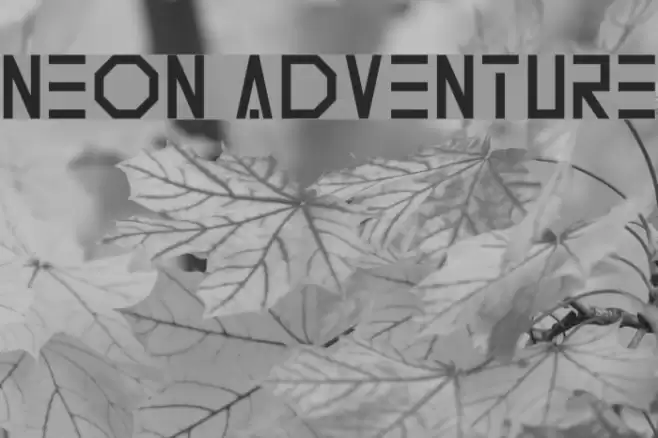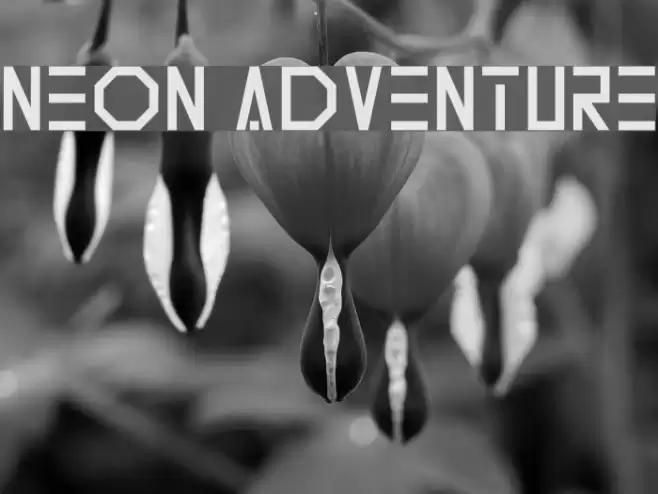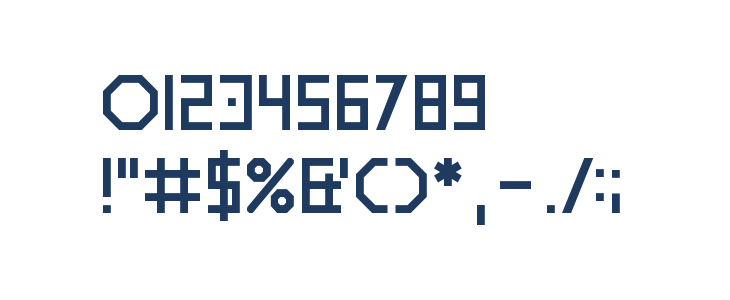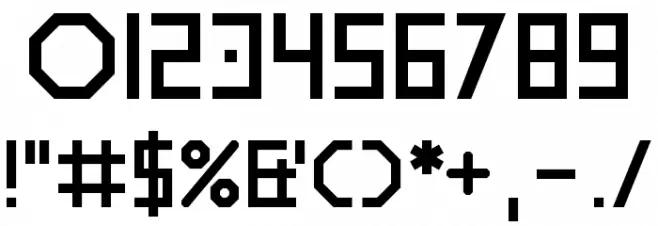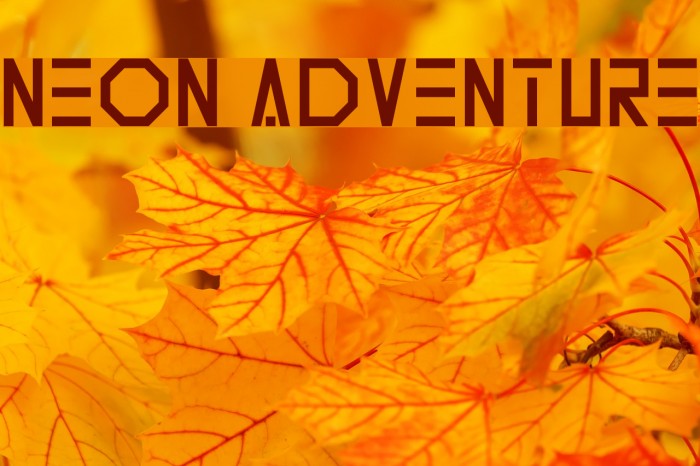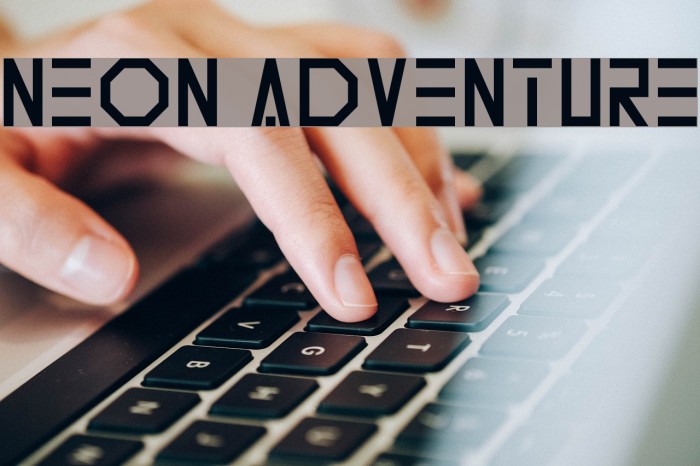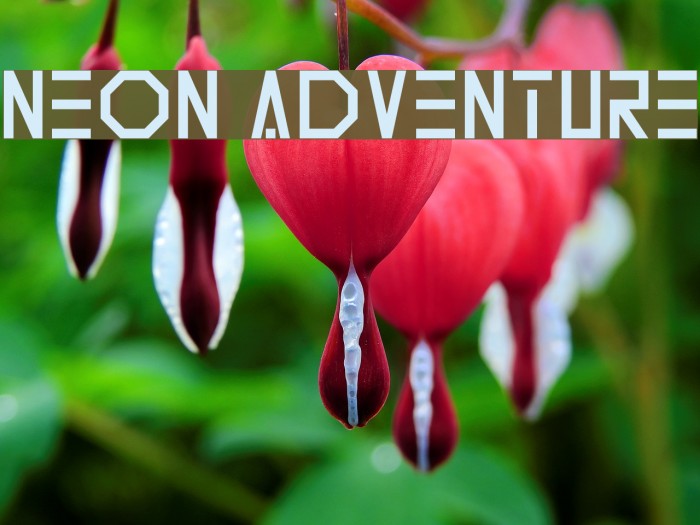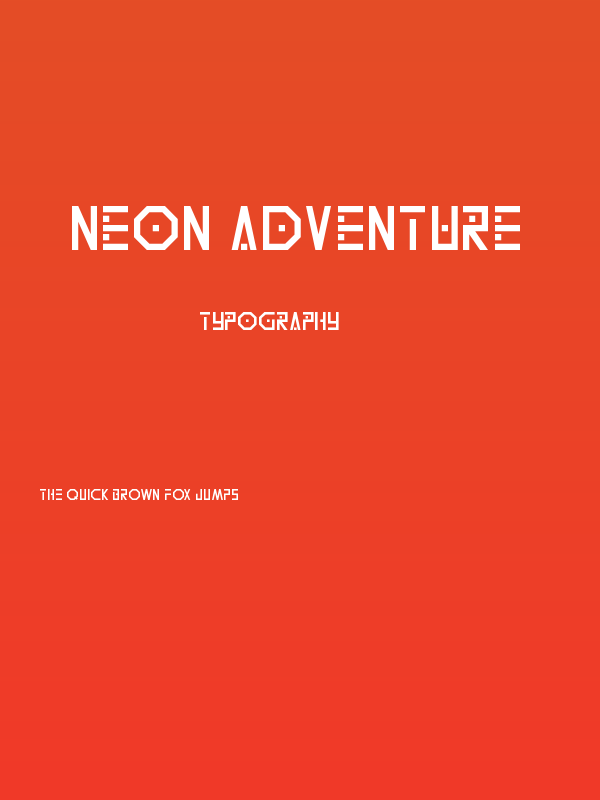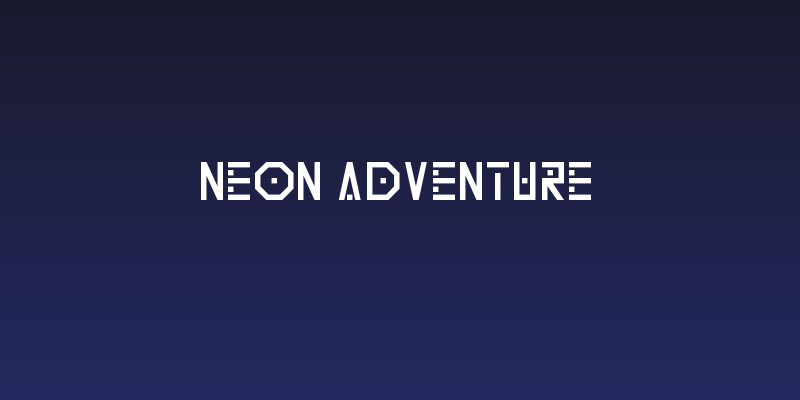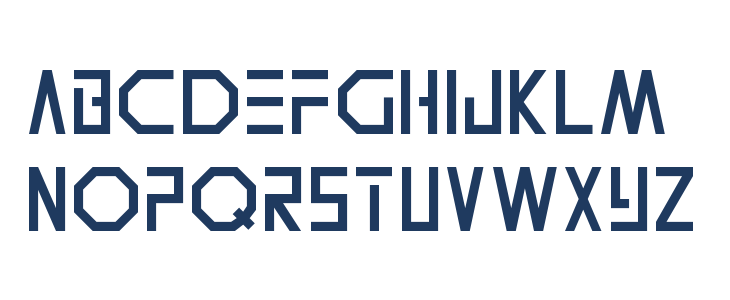
Neon Adventure Font
Neon Adventure Description
This font features a bold, geometric design with a futuristic flair. Each character is constructed with sharp angles and straight lines, creating a sense of precision and modernity. The uppercase letters are particularly striking, with unique cutouts and shapes that give them a distinctive look. The numbers and special characters follow the same design principles, ensuring consistency across the entire set. This font is ideal for projects that require a modern, tech-inspired aesthetic, such as digital interfaces, gaming titles, or sci-fi themed designs.
A bold, geometric font with a futuristic and tech-inspired design from Uncategorized fonts.
- Proposed Projects: Ideal for digital interfaces, gaming titles, sci-fi themed designs, and modern branding projects.